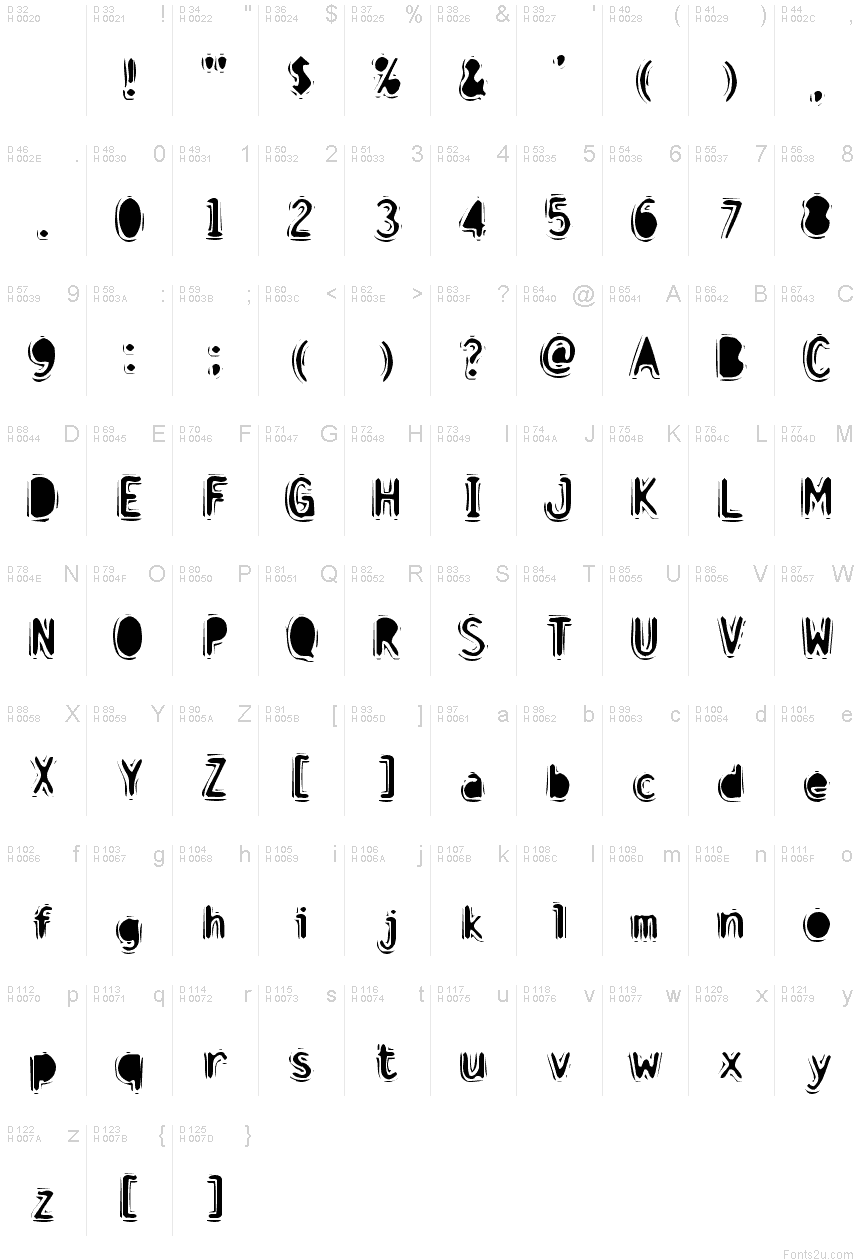
Discount Inferno Bold
Discount Inferno Bold font by Dave Kellam is a free eroded display typeface that looks like it’s been chewed up by light and shadow. Thick, inky blobs collide with crisp white gaps, giving each letter a punchy, almost flickering presence that feels both chaotic and controlled. The result is a gritty, high-energy look that jumps off posters, covers, and screens without needing extra effects.
Using Discount Inferno Bold, you get loud, irregular shapes that instantly suggest underground parties, zines, horror themes, and edgy music branding. This free font works beautifully for event flyers, album art, bold logotypes, experimental titles, merch graphics, and social media promos where you want texture and attitude in a single line of text. Pair it with a simple geometric sans at smaller sizes to keep everything legible while letting the wild forms take center stage.